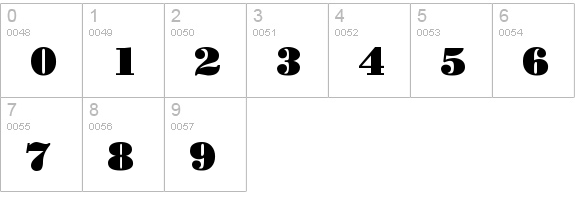
Beau Bold is a strong, high-contrast variant in the Beau typeface family \xE2\x80\x94 well suited to headlines, attention-grabbing titles, and strong calls-to-action.
Introducing Beau Bold font, a sleek and modern typeface designed to make a bold statement in your projects. With its clean lines and sophisticated appearance, Beau Bold exudes confidence and style. This versatile font is perfect for a wide range of design applications, from branding and advertising to packaging and editorial design. What sets Beau Bold font apart is its unique combination of elegance and strength, making it a standout choice for any project that demands attention. Whether you're looking to create eye-catching headlines or striking logos, Beau Bold has you covered with its distinctive look and feel. Best of all, Beau Bold font is completely free to download at FontsMarket.com, allowing you to elevate your designs without breaking the bank. Don't miss out on this opportunity to add a touch of sophistication to your projects with Beau Bold font. Download it today and let your creativity shine!